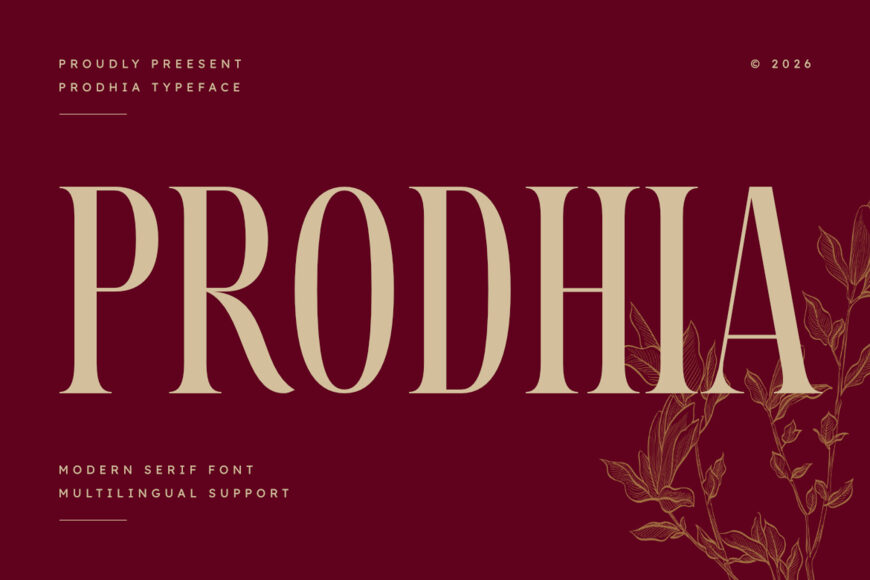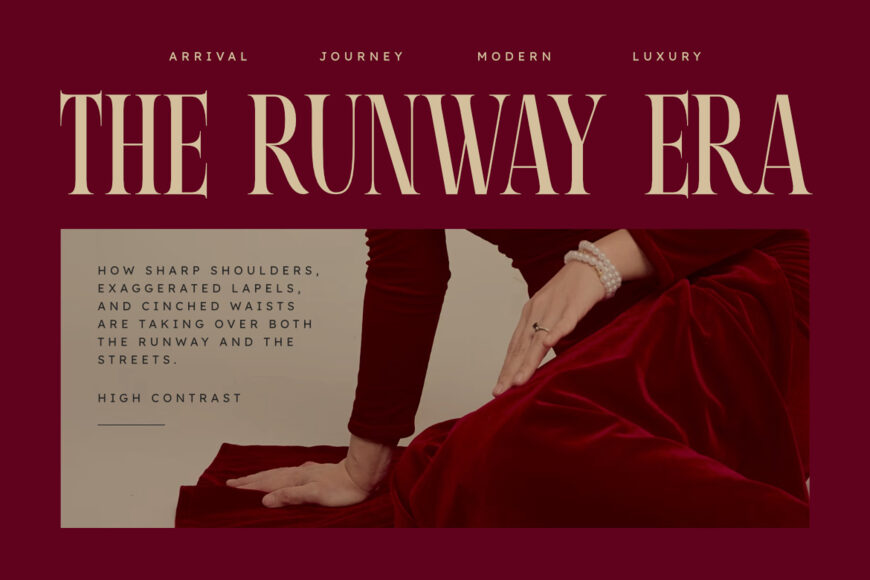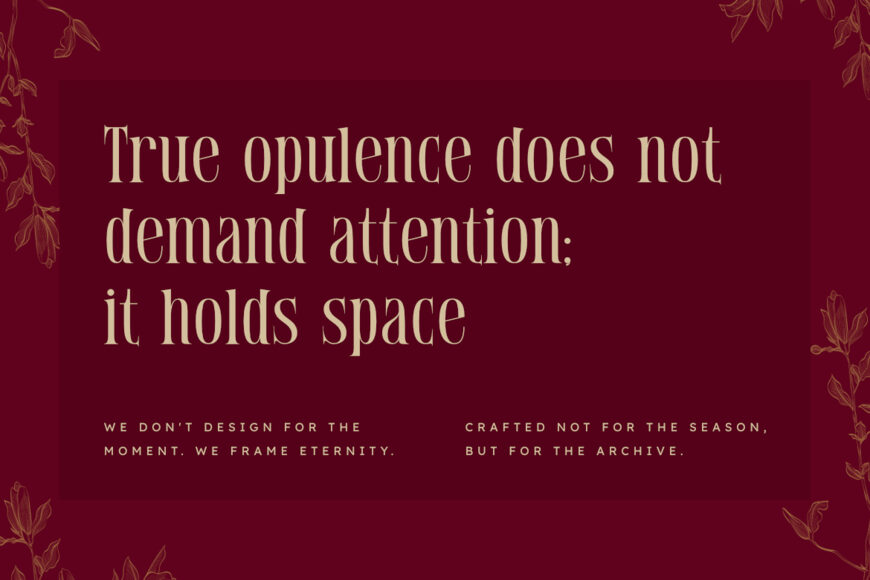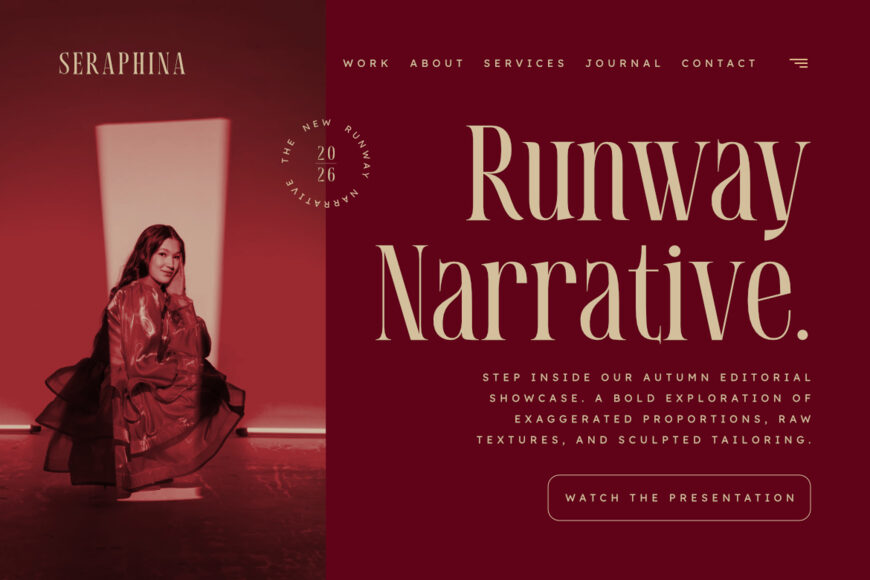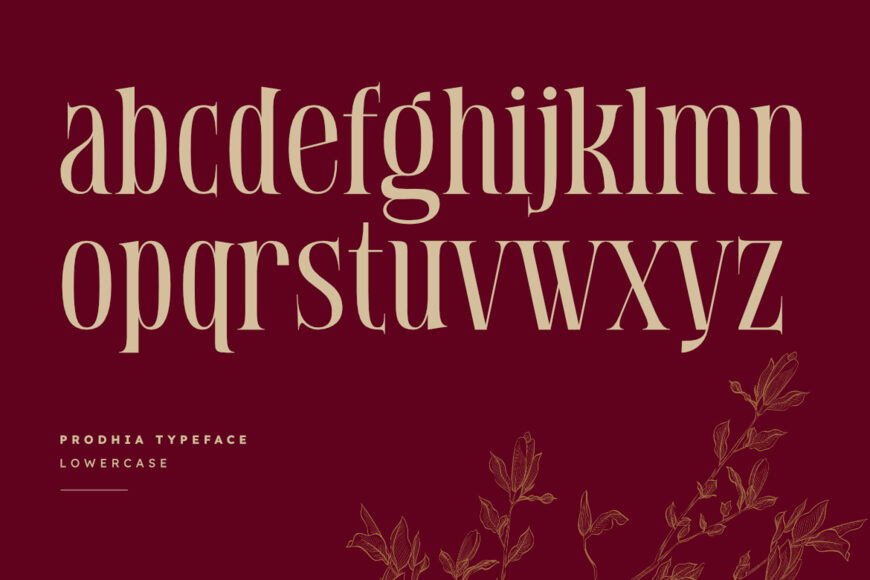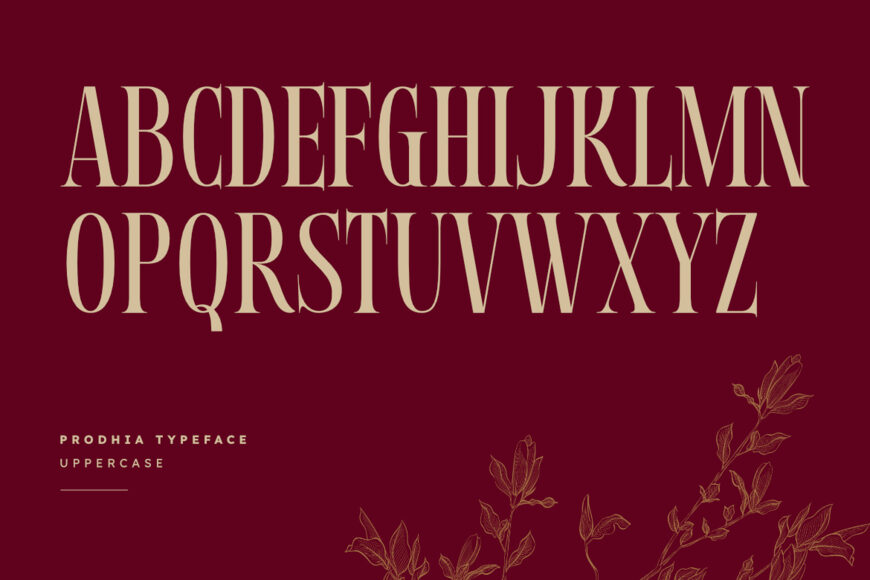
Prodhia is a sophisticated modern serif font designed to bring timeless elegance and high-end professional style to your creative projects. This typeface features beautifully balanced condensed letterforms with refined serif architecture and sleek proportions, making it exceptionally versatile for luxury visual identities.
Whether you are crafting a brand identity for a luxury boutique, designing sleek cosmetics packaging, or creating layouts for lifestyle, fashion, and botanical magazines, Prodhia ensures your work exudes professionalism and style. It is ideal for logos, luxury packaging, websites, and high-end promotional presentations.